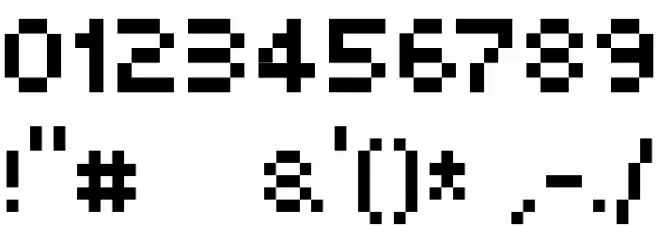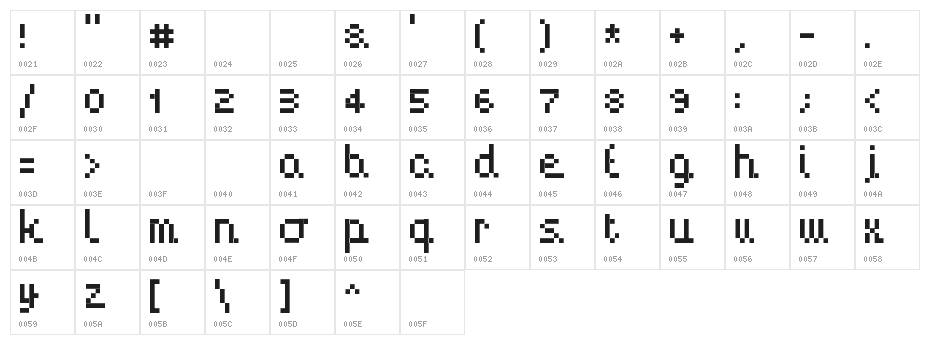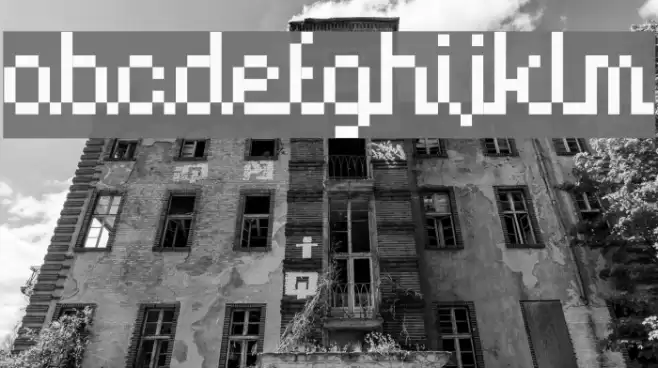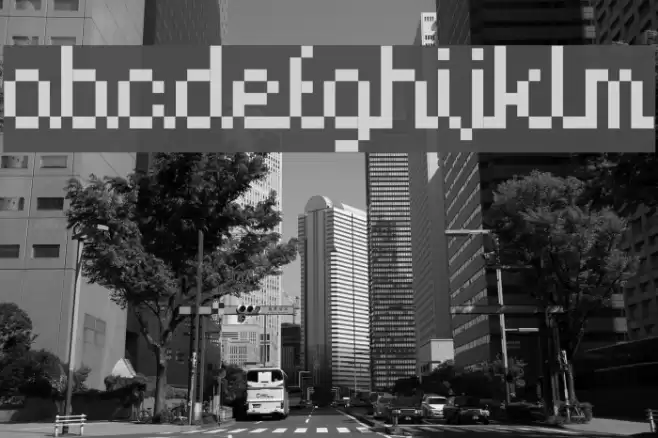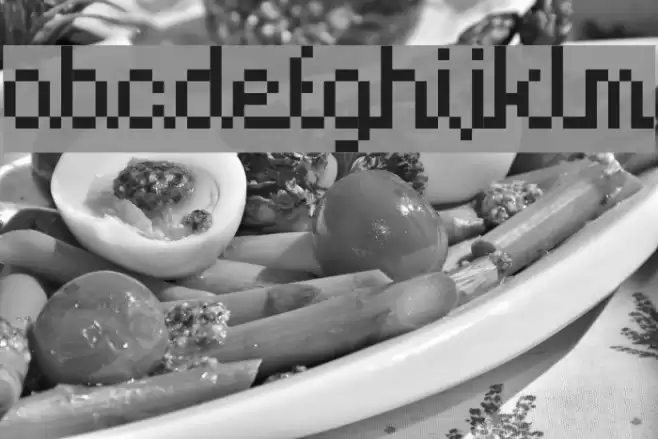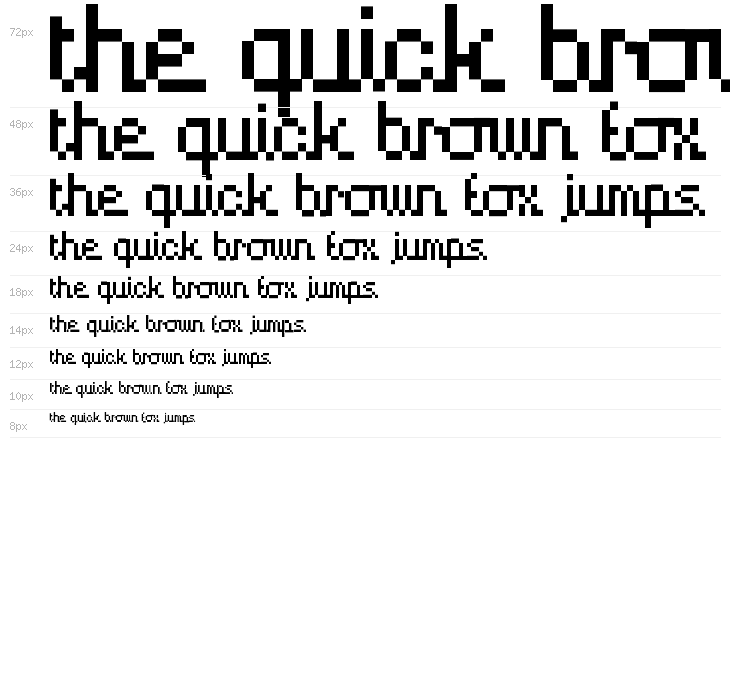
Handy00 Font
Handy00 Description
This font features a pixelated, blocky design reminiscent of early digital displays and retro video games. Each character is constructed with a uniform grid-like structure, giving it a distinctly digital and geometric appearance. The uppercase and lowercase letters maintain a consistent height, enhancing the font's uniformity. The numerals and special characters follow the same pixelated style, ensuring a cohesive look across all glyphs. This font's nostalgic aesthetic is ideal for projects seeking a vintage digital feel.
| Use Case | Logos, Posters, Digital Art |
| Proposed Projects | Ideal for retro video game designs, digital-themed posters, and nostalgic branding projects. |